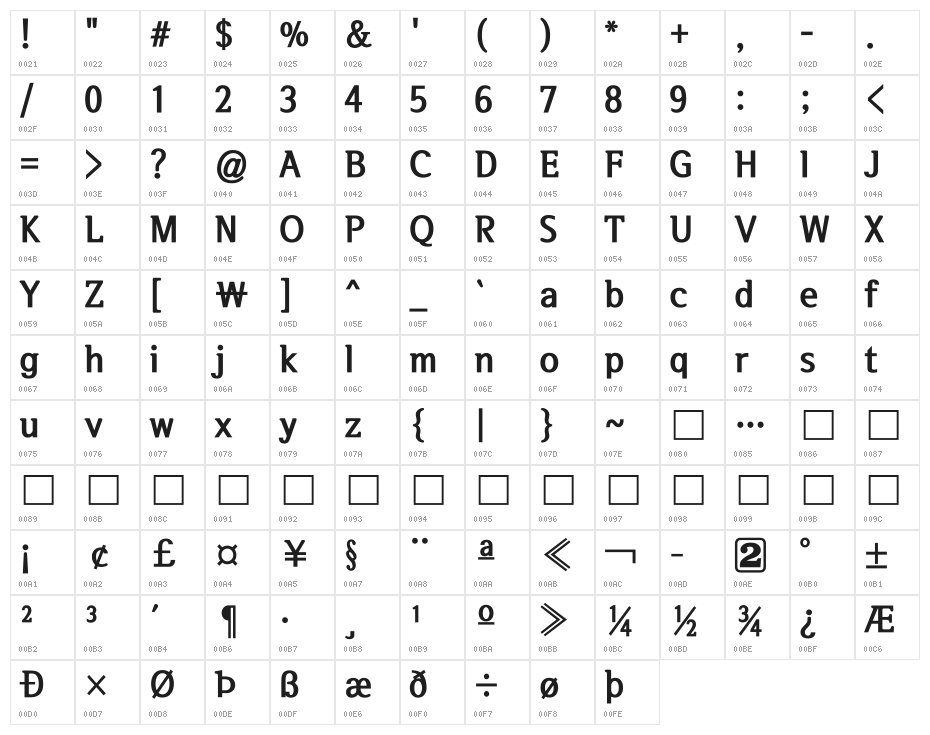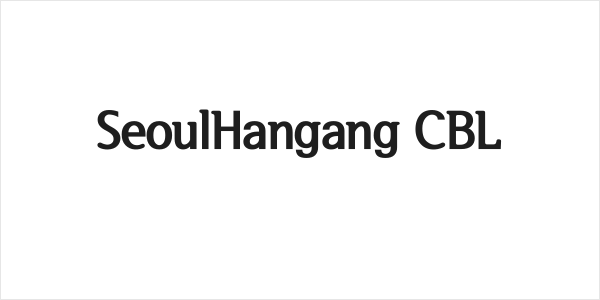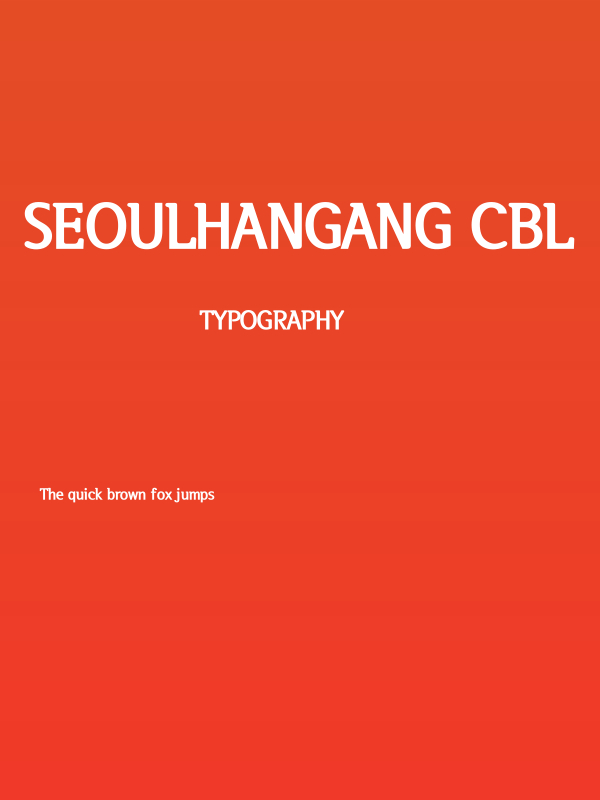
SeoulHangang CBL Font
SeoulHangang CBL Description
This font features a classic serif style with a strong presence and clear readability. The serifs are pronounced, adding a traditional touch to the overall design. The uppercase letters are bold and commanding, while the lowercase letters maintain a consistent and harmonious flow. The numerals are well-proportioned, ensuring clarity in numerical data. Special characters are designed with attention to detail, complementing the overall aesthetic. The font's structure is robust, making it suitable for various applications where a formal and authoritative tone is desired.
| Proposed Projects | Ideal for editorial design, book covers, formal invitations, and branding materials requiring a traditional and authoritative look. |